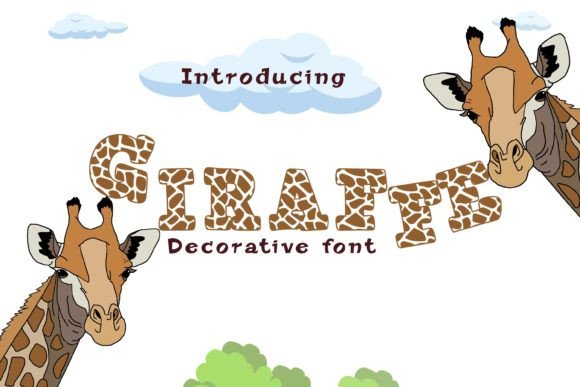
Looking for the best font for website design that will make your content stand out? Look no further than Giraffe Font! Created by Rasa, this decorative font is perfect for adding a touch of fun and creativity to your projects.
One of the standout features of Giraffe Font is its playful giraffe print effect, which is sure to catch the eye of anyone who sees it. Whether you're creating artwork, posters, or stickers, Giraffe Font will add a unique and memorable touch to your designs.
But it's not just the visual appeal that makes Giraffe Font a great choice. With its easy-to-read letters and smooth lines, this font is also highly functional and versatile. It's perfect for use in a variety of settings, from children's books and websites to logos and branding materials.
Speaking of children, Giraffe Font is especially well-suited for young audiences. Its cute and playful design will delight kids of all ages, and it's sure to become a favorite among parents and teachers as well.